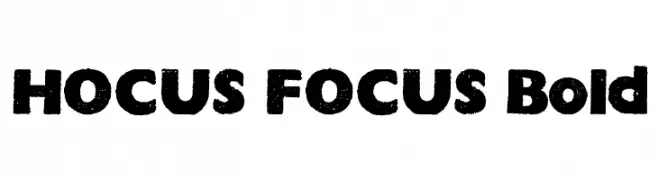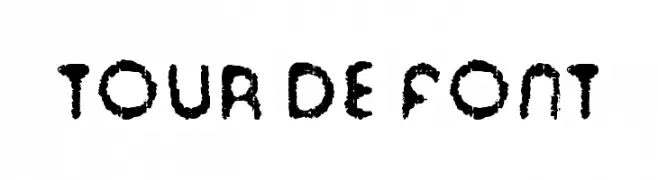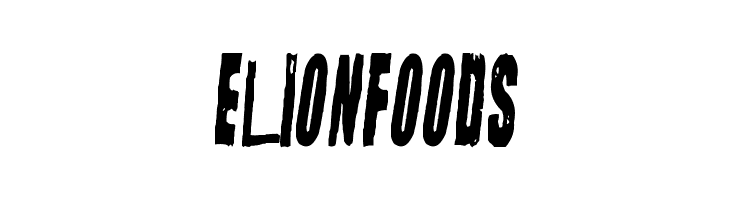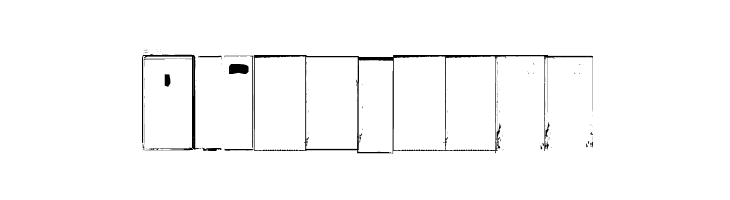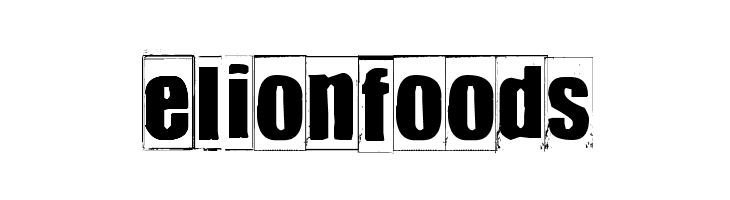
A bold, distressed font with a gritty, textured style.
A bold, distressed font with a rugged, textured appearance.
A bold, distressed font with a grunge aesthetic and textured appearance.
An abstract, hand-drawn font with irregular, brush-like letterforms enclosed in circular shapes.
Minimalist, box-outline geometric font with extreme abstraction.
A bold, distressed font with a vintage, grunge aesthetic.
Decorative font with cow illustrations.
A bold, distressed font with a rugged, industrial style.
A bold, distressed font with a vintage, grunge aesthetic.